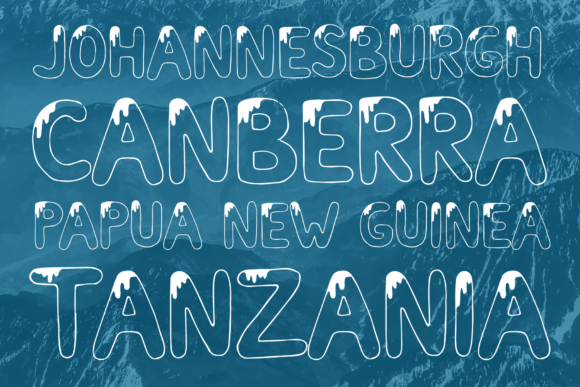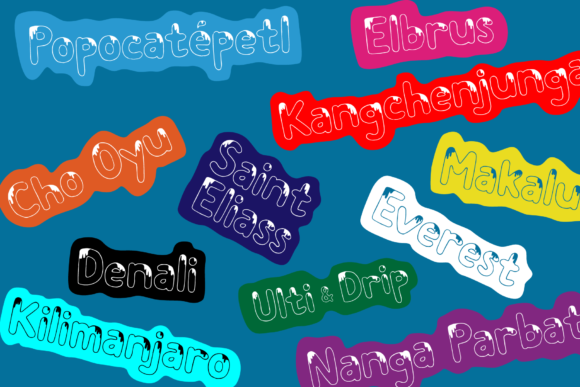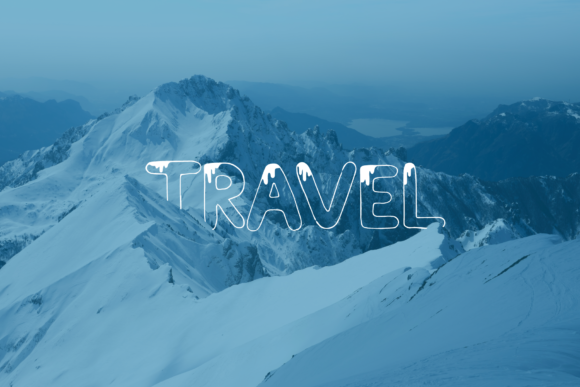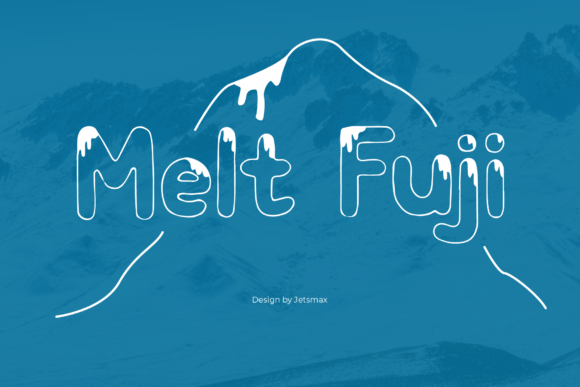
Introduction to Melt Fuji Font
Melt Fuji is a cool decorative font that was inspired by the beautiful scenery of a snow covered mountain.
No matter the topic, this font will be an incredibly asset to your fonts’ library, as it has the potential to elevate any creation .
Key Features of Melt Fuji Font